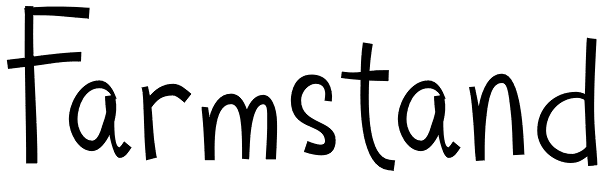
Farmstand
Farmstand is a fresh and joyful font with the same kind-hearted feeling and naiveté of your local farmstand. Paired with Farmstand Goodies, 52 hand-drawn images of funky farmers' fare, you can celebrate and have some pickles, savor sweet...
Farmstand